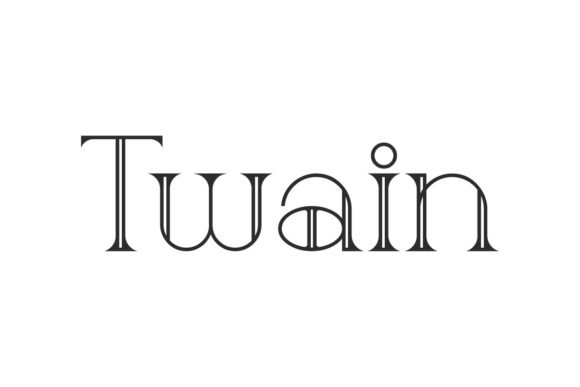
In a world where words dance and stories unfold, allow us to introduce you to Twain Font, a serif masterpiece that will captivate your senses and ignite your creativity. This vintage-inspired font, brought to life by the talented NihStudio, transcends the boundaries of ordinary typography, inviting you on a journey through time and elegance.
Twain Font is not merely a collection of letters; it's an artistic expression that breathes life into your words. Its delicate curves and timeless charm evoke a sense of nostalgia, whispering tales of a bygone era. Whether you're crafting a wedding program, a heartfelt letter, or an enchanting design, Twain Font will elevate your words, leaving a lasting impression on all who behold them.
Step into a world of sophistication and grace as you explore the endless possibilities of Twain Font. Its versatility knows no bounds, seamlessly adapting to a myriad of projects. From elegant wedding invitations that exude romance to captivating branding materials that leave a lasting impact, Twain Font will effortlessly transform your creative vision into a tangible masterpiece.
With Twain Font, you'll discover a font that speaks to the heart, evoking emotions and creating a connection that goes beyond words. Allow your imagination to soar as you weave together tales of love, joy, and adventure, knowing that Twain Font will faithfully capture the essence of your message.
So why settle for ordinary when you can embrace the extraordinary? Embark on a typographic adventure with Twain Font and witness the transformation of your creative projects. Let your words take center stage, adorned with the timeless beauty and elegance that only Twain Font can provide.